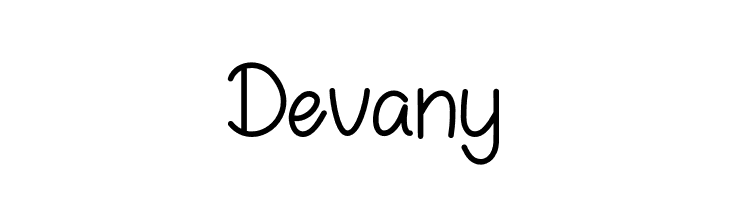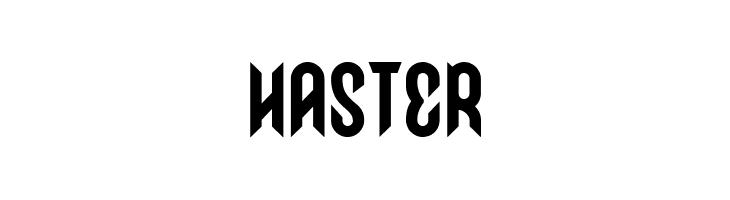
A modern-vintage font with elegant curves and sharp edges, ideal for sophisticated designs.
A modern, elegant script font with fluid, expressive letterforms.
A playful, hand-drawn font with bold, sketch-like outlines.
A bold, modern sans-serif font with clean, geometric lines.
A bold, modern font with thick, rounded strokes for a strong visual impact.
A geometric, angular font with sharp edges and a modern aesthetic.
A bold, blackletter-style font with ornate, angular letterforms enclosed in squares.
A bold, distressed font with a rugged, vintage style.
An elegant, high-contrast font with elongated letterforms and a luxurious style.
A lively handwritten font with fluid, natural strokes and a playful aesthetic.
A playful, handwritten font with smooth, flowing letterforms.
A classic, flowing script font with elegant, connected characters.
A bold, geometric font with a dotted interior and thick outlines.
A bold, handwritten font with thick, marker-like strokes.
A playful, handwritten script font with smooth, rounded strokes.
A sophisticated script font with elegant loops and swashes, perfect for formal and creative projects.
An elegant script font with flowing, cursive letterforms and artistic swashes.
An elegant script font with fluid, connected strokes and a sophisticated flair.
An elegant and flowing script font with graceful, connected letterforms.
A bold, playful font with rounded edges and a dynamic slant.
A bold, playful handwritten font with fluid strokes and a whimsical style.
A sleek, geometric font with thin, uniform strokes and a modern aesthetic.
A sleek, modern italic font with geometric precision and bold weight.
A modern, italic font with smooth, continuous strokes and a dynamic appearance.
A sleek, modern italic font with clean lines and geometric shapes.
An elegant, flowing script font with bold, cursive letterforms.
A bold, horror-themed font with dripping, jagged edges.
A lively, cursive handwritten font with dynamic strokes and elegant flair.
A graceful and elegant script font with flowing, interconnected letters.